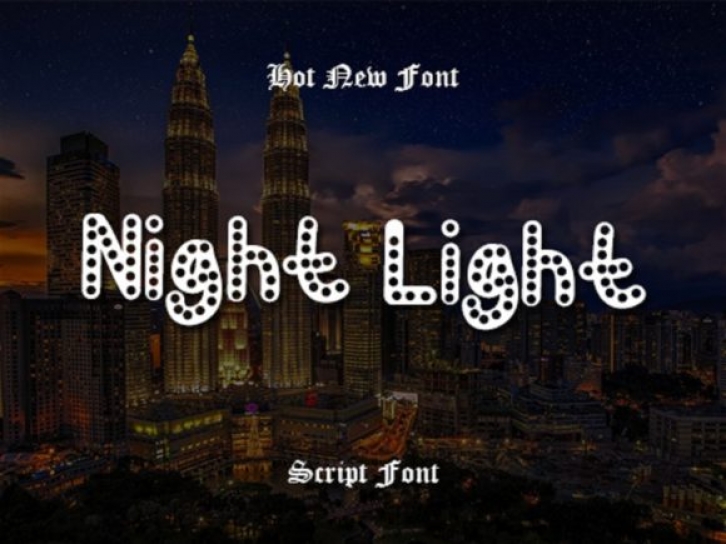
Night Light is a trendy dotted display font. Simple but with a strong visual effect, this font will instantly make your creation more appealing than any others.